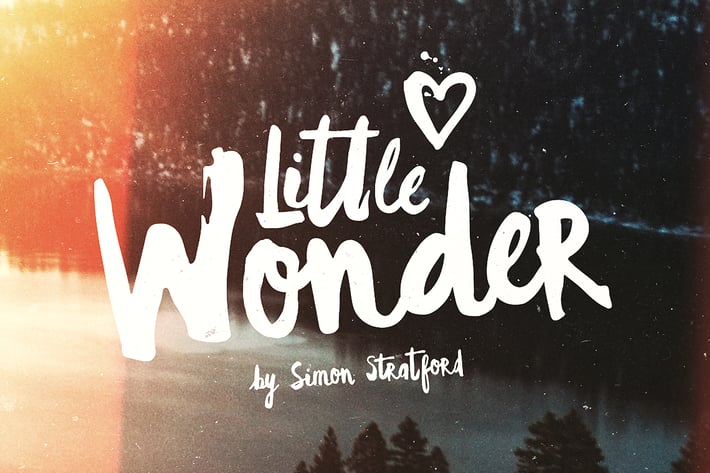
Little Wonder font
Little wonder is handpainted typeface. Made with a single watercolour brush and painstakingly digitized into a typeface.
It's a script font, but it's bold enough to be used as a display typeface. It's a bit chaotic and kooky but I like it. It has one style and a load of alternative letters, initial letterforms, and a few terminal forms.
If it was a celebrity it would be more Bill Murray than Kanye West.
It looks grand over photos but could be used for headlines, invitations, posters and branding work or anything where you want that hand made look and feel.
Little Wonder font includes;
One weight regular
Standard Ligatures
Upper and lowercase
Punctuation & Symbols
Western European characters
Central European characters
South Eastern European characters